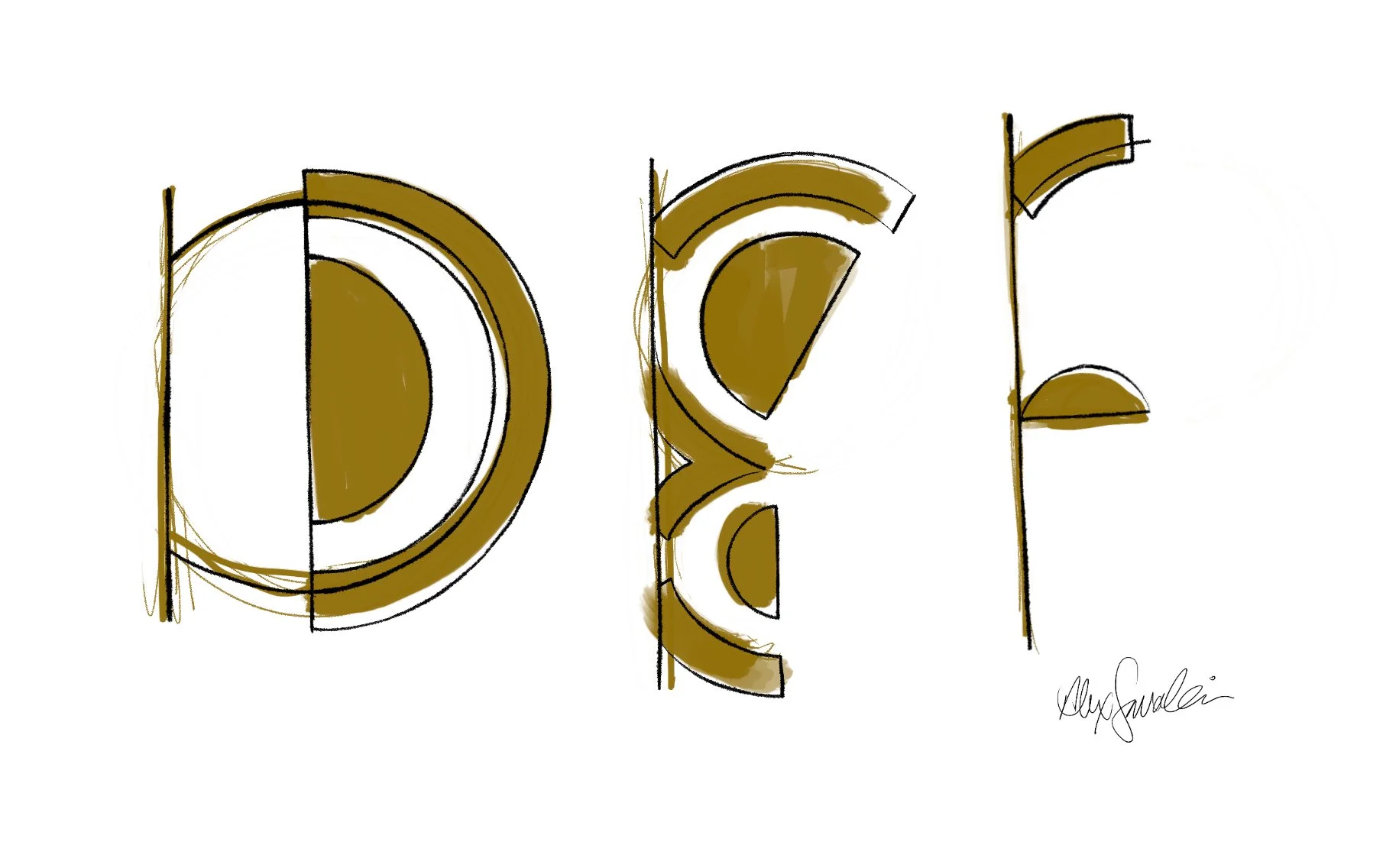
Designing Display Type By Hand
Lettering Guy creates expressive hand drawn display type. His lettering is influenced by vintage signage and old type catalogs. He envisions his lettering in projects from posters to consumer products.